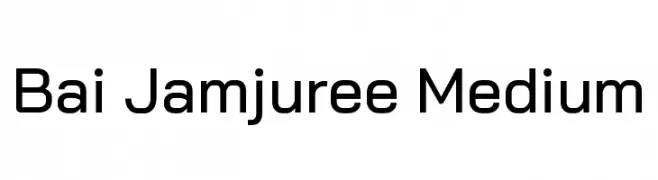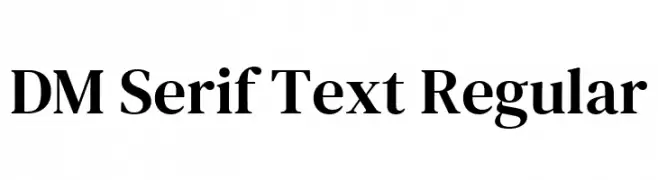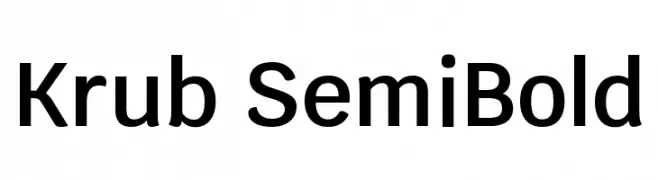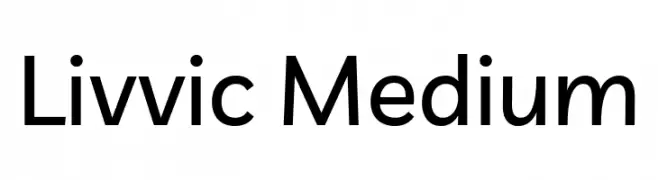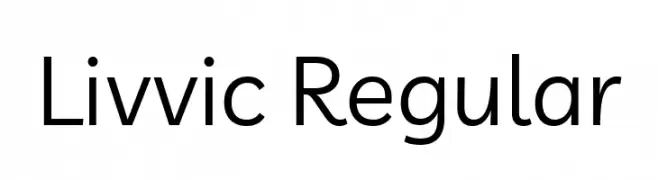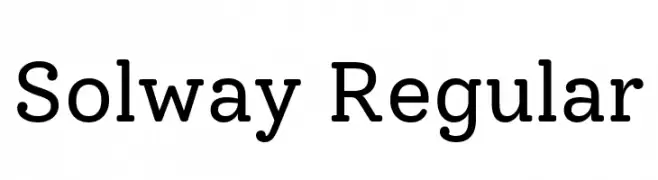
A classic serif font with elegant lines and balanced proportions.
A modern, geometric sans-serif typeface with balanced proportions and consistent stroke widths.
A modern serif font with balanced proportions and subtle elegance.
A modern, geometric sans-serif font with balanced proportions and clear legibility.
A modern, geometric sans-serif font with balanced proportions and a clean appearance.
A modern sans-serif font with geometric shapes and balanced proportions.
A modern, geometric sans-serif font with balanced proportions and minimalistic style.
A modern, geometric sans-serif font with balanced proportions and clear readability.
A classic serif typeface with balanced proportions and moderate contrast.
A classic serif typeface with elegant detailing and balanced proportions.